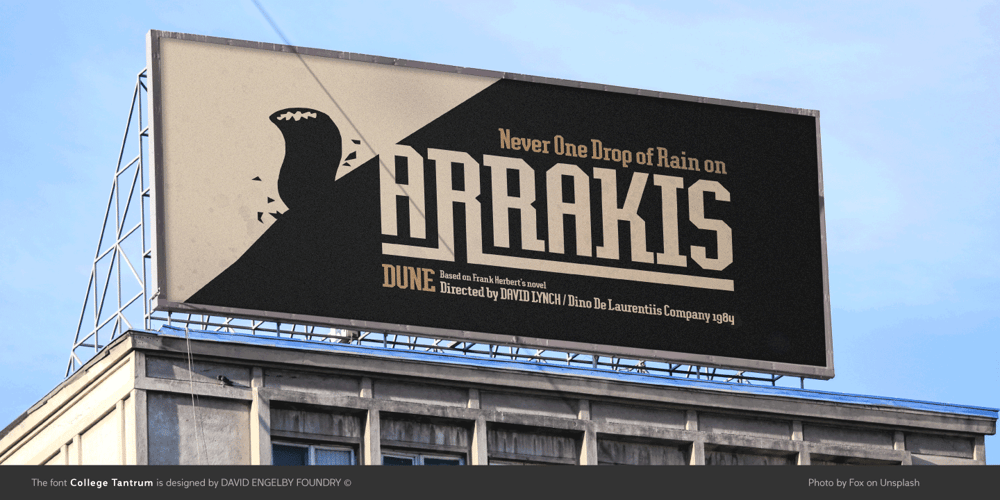
College Tantrum
College Tantrum font
College Tantrum Font Family was designed by David Engelby and published by David Engelby Foundry. College Tantrum contains 1 styles and family package options. College Tantrum is my take on the college font tradition – an edgy, hard working attitude and a proud statement. The font comes with both lower case and upper case letters – plus a bundle of ligatures, alternate glyph sets and college sport dingbats. It’s also versatile as a poster font, for websites and for infographics. Play ball!